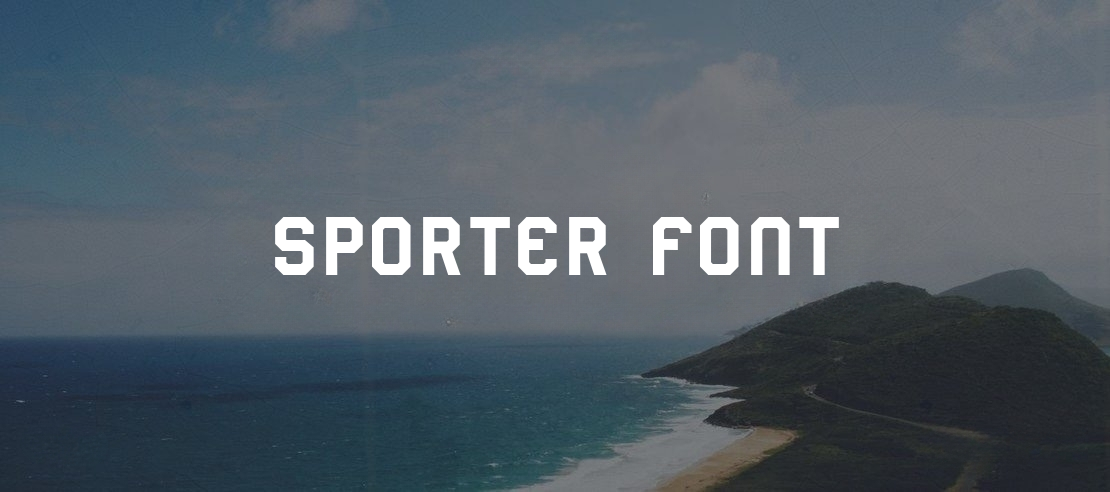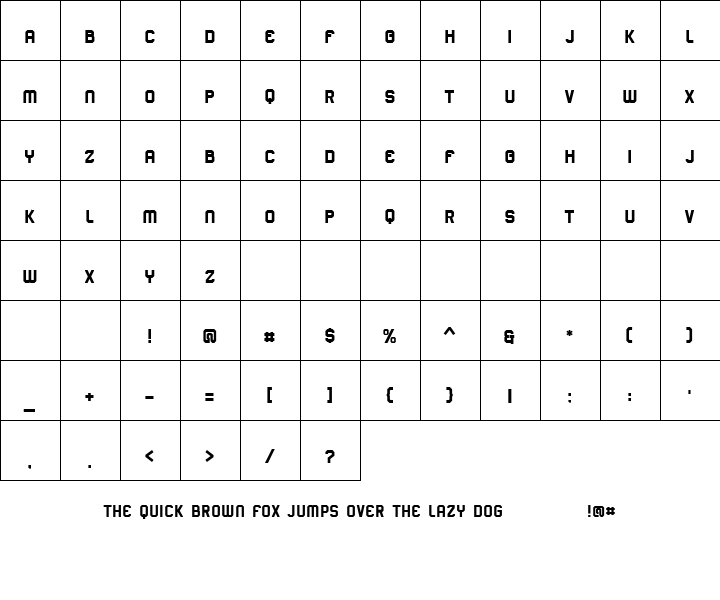
As the name suggests this Sporter Font is a Sporty typeface designed by famous BT Blankids Studio ESTD-2019. This font is very trendy and gives you an athletic feeling about it.
This font has a sporty games typeface which is comic and looks old-school in its appearance. This is an excellent font if you are a sports lover with its bold display and features, it can be used in logotype, label, badge, headline, signature, packaging, and many more.
The Sporter Font is well-suitable for logos, branding, invitation, wedding designs, stationery, business cards, etc. It is a stylish and amazing typeface and is available in Regular style. It has a strong vertical axis with tall letters while the overall effect is a very strong, modern typeface that is still very legible.
The creator of this Sporty typeface is Bangkit Tri Setiadi. This font has a sporty display typeface which is comic and looks old school with its appearance.
| Style | Comic |
What type of font is Sporter Font?
This font has a sporty typeface which is comic and looks old-school with its appearance.
Is Sporter typeface texture outdated?
No. It is not an outdated texture. The texture has neat and refined features to curtail all your needs for personal projects.
Is Sporter font considered a safe font?
Yes. Sporter font is considered to be safe font and well-suitable for logos, branding, business cards, etc.